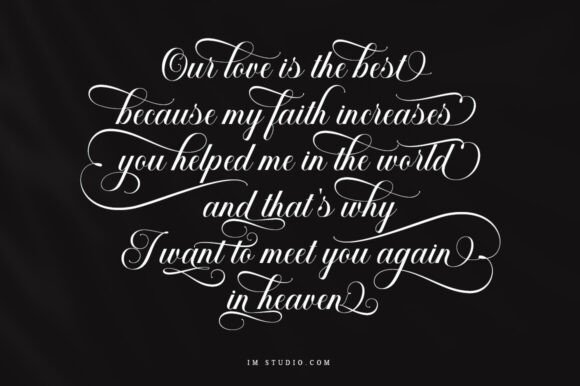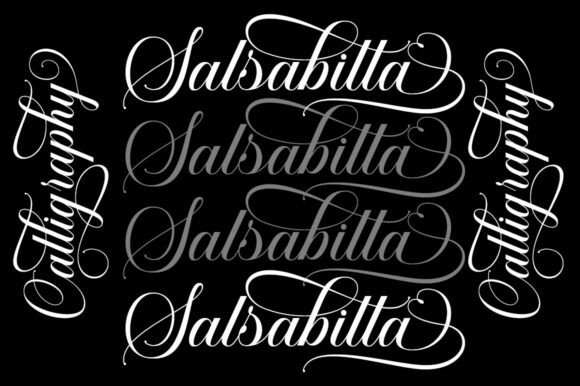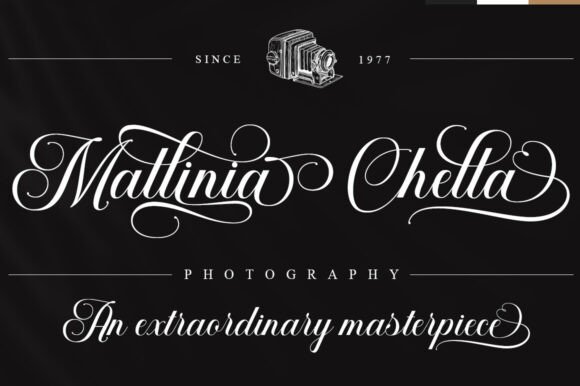
Introduction to Salsabilla Calligraphy Font
Salsabilla Calligraphy font is a modern calligraphy design, including Regular.
This font is casual and beautiful with swashes It can be used for various purposes, such as logos, product packaging, wedding invitations, branding, headlines, signage, labels, signatures, book covers, posters, quotes, and more.
Key Features of Salsabilla Calligraphy Font
Why Choose Salsabilla Calligraphy Font?